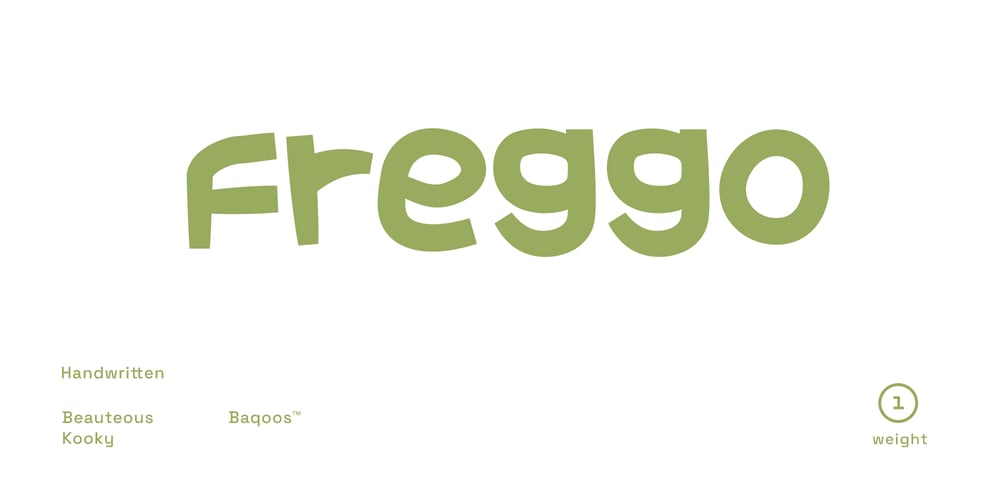
Freggo
Freggo font
Freggo Font Family was designed by Andrew Seah and published by Baqoos. Freggo contains 1 styles and family package options. Freggo is a beauteous kooky handwritten typeface apt for headline, editorial, branding, packaging, printed materials and typographic applications. 200+ glyphs including punctuation and numerical.